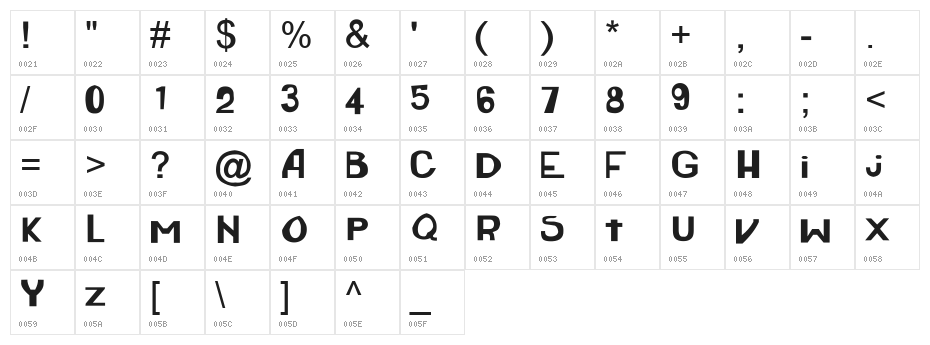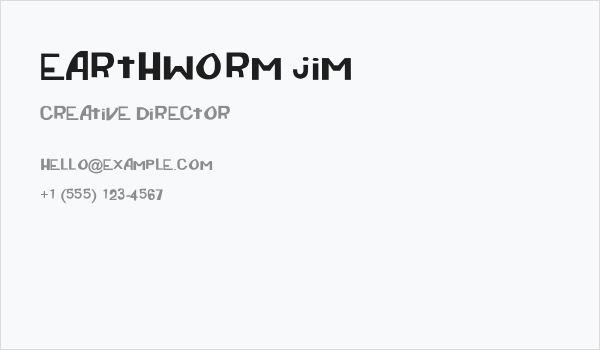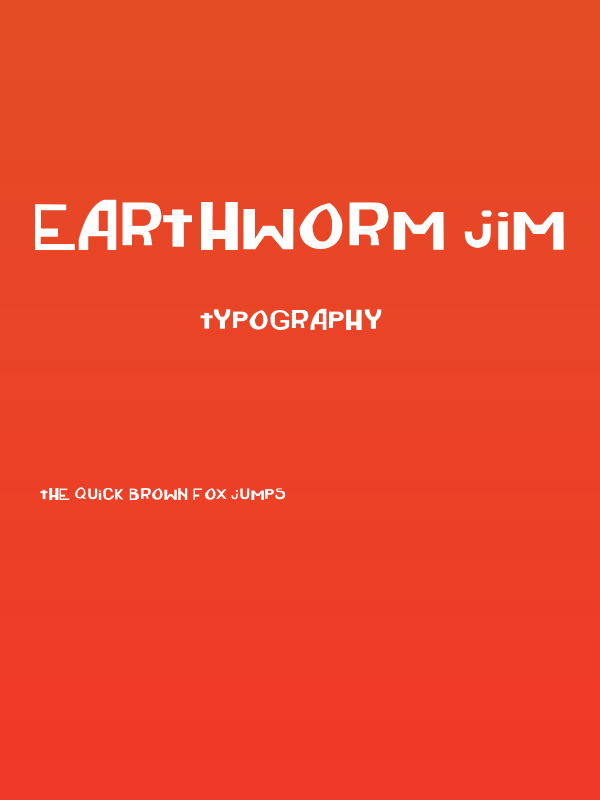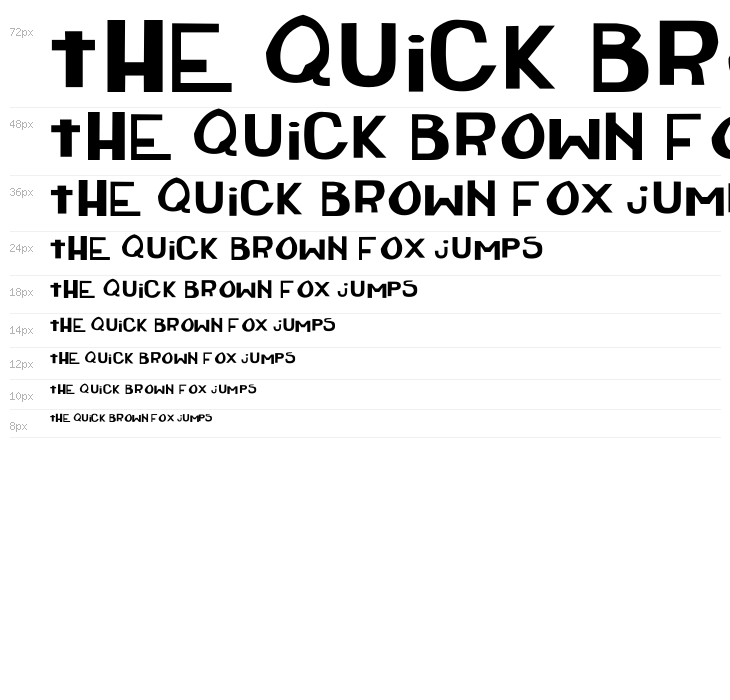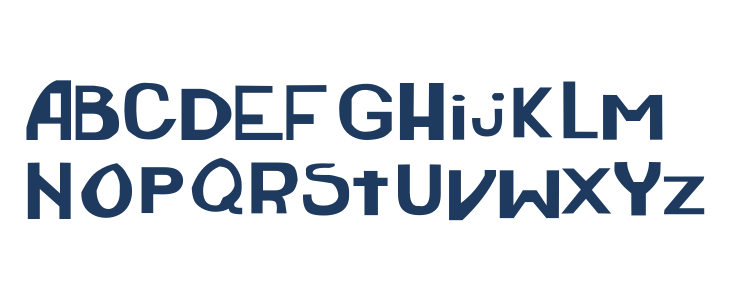
Earthworm Jim Font
Earthworm Jim Description
This font exhibits a bold and playful style, characterized by its thick, uniform strokes and geometric shapes. The uppercase letters are particularly striking, with a distinctive angular design that gives them a modern and dynamic appearance. The lowercase letters maintain a consistent style, complementing the uppercase with a slightly more rounded form. Numbers and special characters are crafted with the same boldness, ensuring readability and visual impact. The overall design is clean and structured, making it suitable for attention-grabbing headlines or creative projects that require a touch of uniqueness.
| Proposed Projects | Ideal for video game titles, comic book covers, posters, and branding materials that require a bold and dynamic look. |